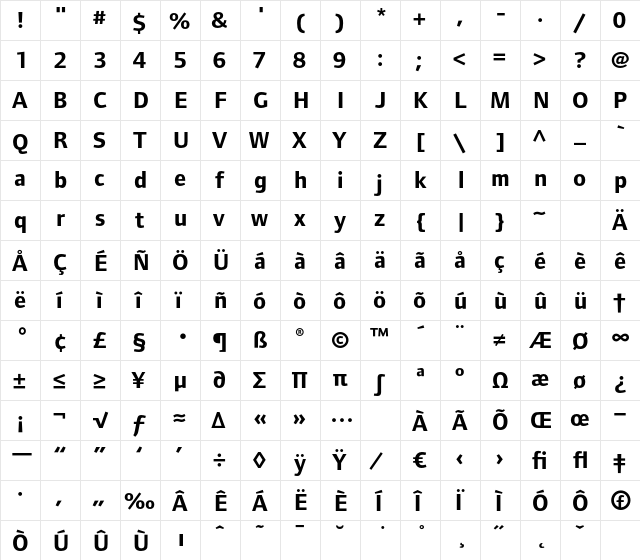
FoundryFormSans Bold
Design Context for FoundryFormSans Typeface
FoundryFormSans is a composed and adaptable typeface that performs quietly and consistently across a wide range of design contexts. The heavy weight commands attention and anchors typographic hierarchies.